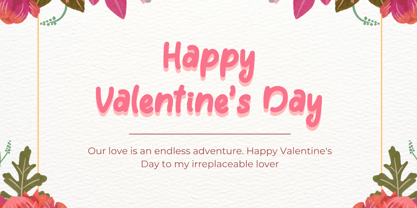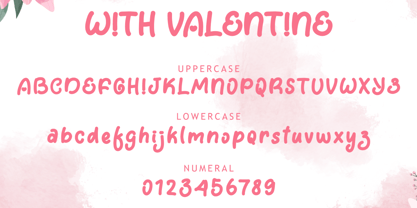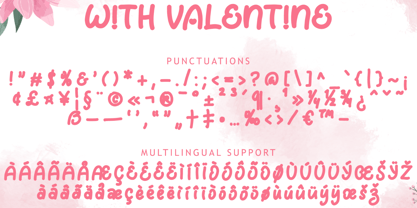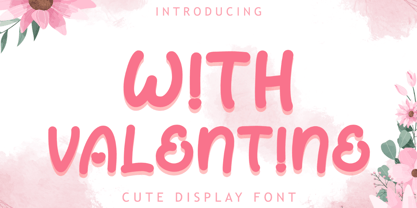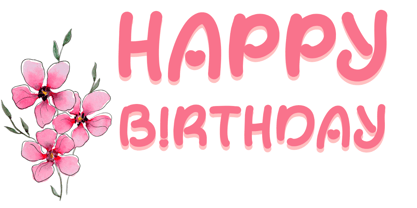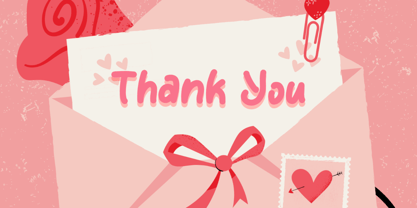
With Valentine
by Yoga Letter
The With Valentine Font Family was designed by Isroni Yoga Prasetya and published by Yoga Letter. With Valentine contains 1 styles. More about this family
"With Valentine" is a cute and beautiful display font. It comes with uppercase, lowercase, numbers, punctuation, and multilingual support. It is perfect for use on Valentine's Day, wedding, Christmas, banners, posters, prints, branding, stickers, Easter, photography, holidays, and more.
Designers: Isroni Yoga Prasetya
Foundry: Yoga Letter